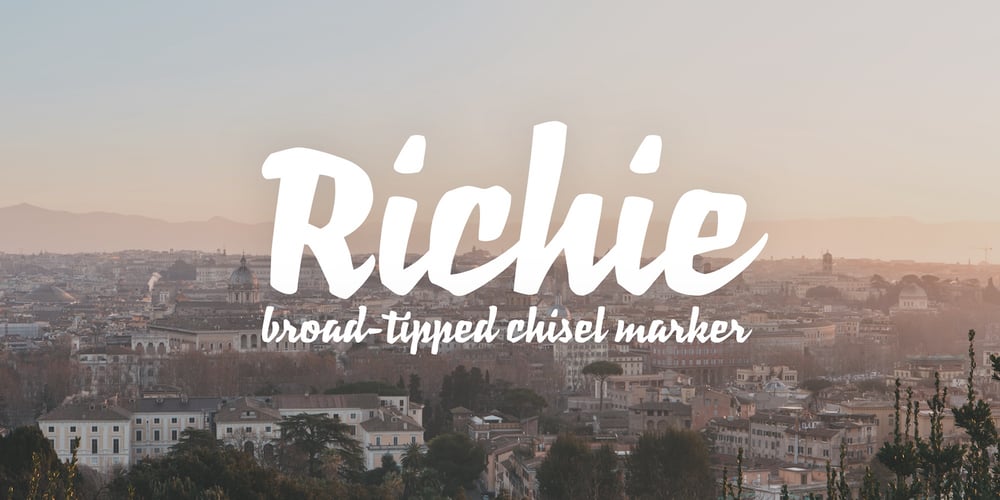
Richie Font Family was designed by Jim Ford and published by Monotype. Richie contains 1 styles and family package options. The Richie™ typeface grew out of a lettering experiment inspired by the work of Czech type designer Oldrich Menhart (1897-1962). Menhart’s typefaces were primarily text designs with a strong personal calligraphic influence. Monotype Studio designer, Jim Ford, wondered what a display typeface from Menhart might look like, and began drawing bold script characters with a broad-tipped chisel marker. “It was a familiar but laborious exercise,” explains Ford, “I tried to achieve an authentic – yet controlled – randomness that would serve as the foundation of a typeface.” Ford first drew a large suite of characters using the marker. All the drawings were then carefully adjusted, and scanned. Ford then pieced together a typeface from the best versions of letters, and refined those further. The result is a rugged, somewhat eccentric and playful script built on an obvious hand-drawn foundation. In a world of smooth scripts, the Richie design is heavy, chunky and rough. Its hand-made feel and vigorous rhythm put the power of raw brush lettering into the typographer’s hands. OpenType® fonts of Richie include standard, contextual and discretionary ligatures, in addition to contextual and stylistic alternates, old style, lining and superior figures, plus a large complement of swash characters. The name “Richie”? It grew out of Ford’s original premise for the design. “I wondered what it might it look like if ‘Old Richie’ had designed a heavy display face or script.”